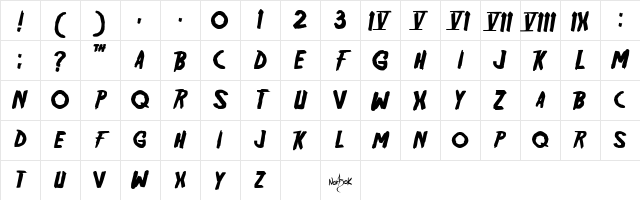
Friday13 Regular Free Font
Friday13 Regular
Designer: Thomas W.Otto
Design Context for Friday13
Friday13 is a composed and adaptable typeface that performs quietly and consistently across a wide range of design contexts.